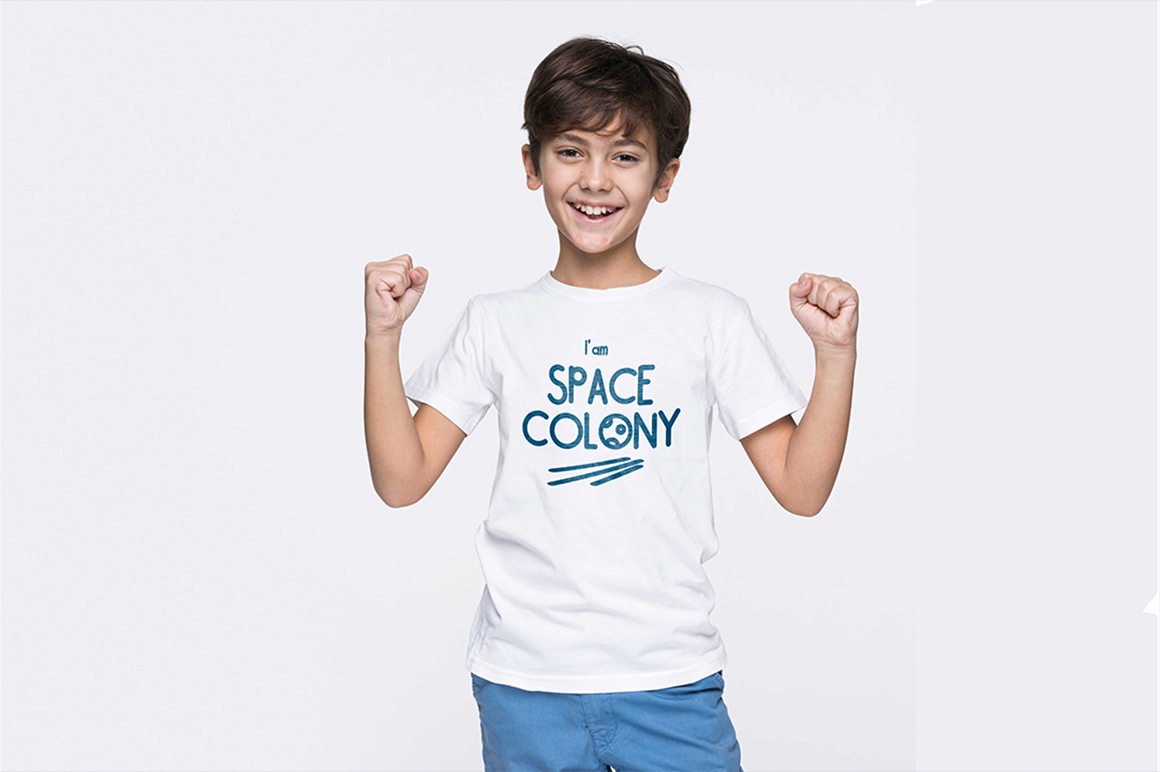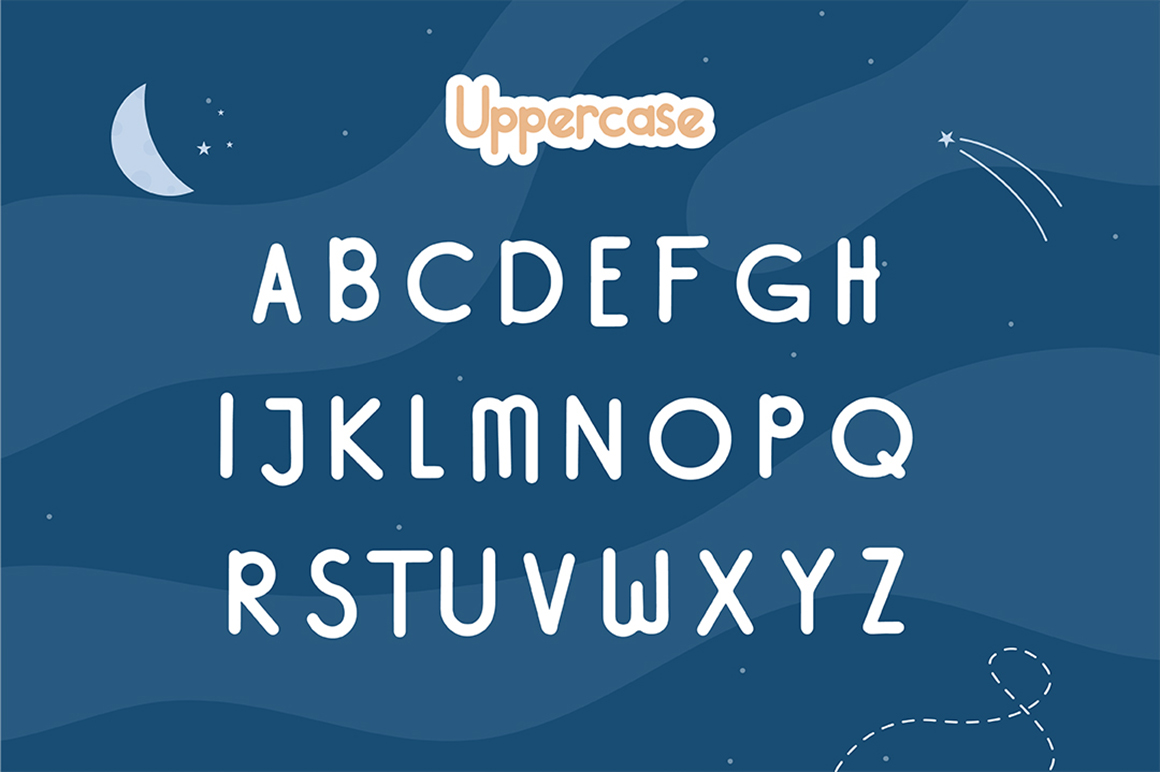
Little Orion Free Font
Little Orion Free Font is a lovely and incredibly cute handwritten font. Get creative with its sweet and friendly style, and use it to brighten up any kids and school project. This free typeface was designed by a talented Yudi Setiawan. If you like it don’t forget to check out the full version.